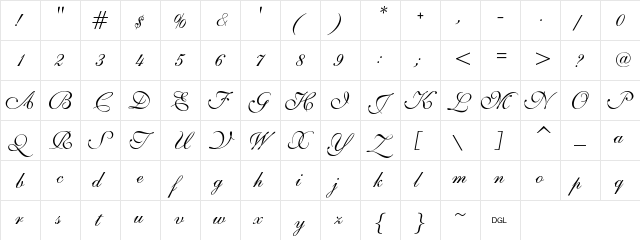
ILS Script Regular
| Foundry | Digital Graphic Labs |
| Designer | Digital Graphic Labs |
Design Context for ILS Script Typeface
ILS Script flows with the natural rhythm of handwritten lettering, making it ideal for designs that call for warmth and personal expression.
Font Pairing: Combine ILS Script with a simple geometric sans for maximum contrast — the tension between flowing curves and clean structure is a classic typographic pairing.
Pro Tip: Use ILS Script for short runs of text — names, titles, or taglines. Extended body copy in script faces tires the eye quickly.